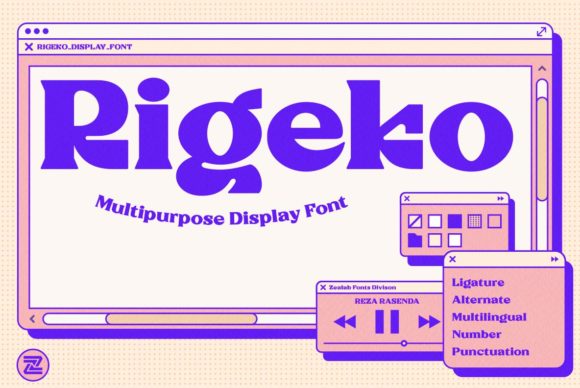
Feast your eyes on Rigeko Font, a striking display font that oozes boldness and chunkiness, ready to inject life into your creative endeavors. Crafted by the skilled hands of zealab fonts division, Rigeko is not just a font; it's an experience that will transform your designs into captivating masterpieces.
With its strong and robust letterforms, Rigeko exudes an air of confidence and authority, making it the perfect choice for headlines, logos, posters, and other attention-grabbing designs. Let your words leap off the page with Rigeko's distinct personality, leaving a lasting impression on your audience.
Step into a realm of retro charm with Rigeko, a font that captures the essence of yesteryears. Its vintage-inspired style evokes a sense of nostalgia, adding a touch of timeless elegance to your designs. Whether you're creating retro-themed projects or simply seeking a touch of classic flair, Rigeko is your perfect companion.
Unleash your creativity with Rigeko, a font that knows no bounds. Its versatility shines through in its ability to adapt to a wide range of design styles, from vintage to modern, from playful to sophisticated. Let your imagination soar as you explore the endless possibilities that Rigeko offers, transforming your ideas into stunning visual realities.